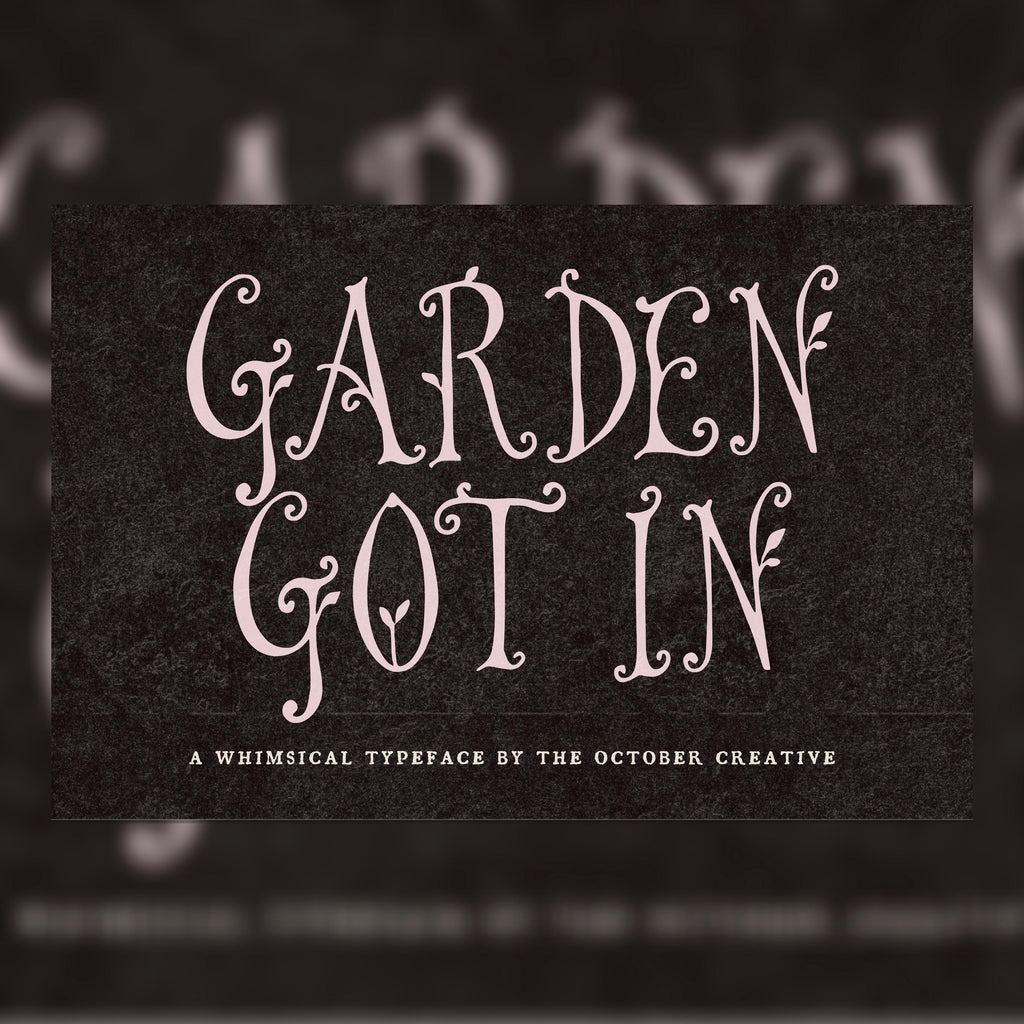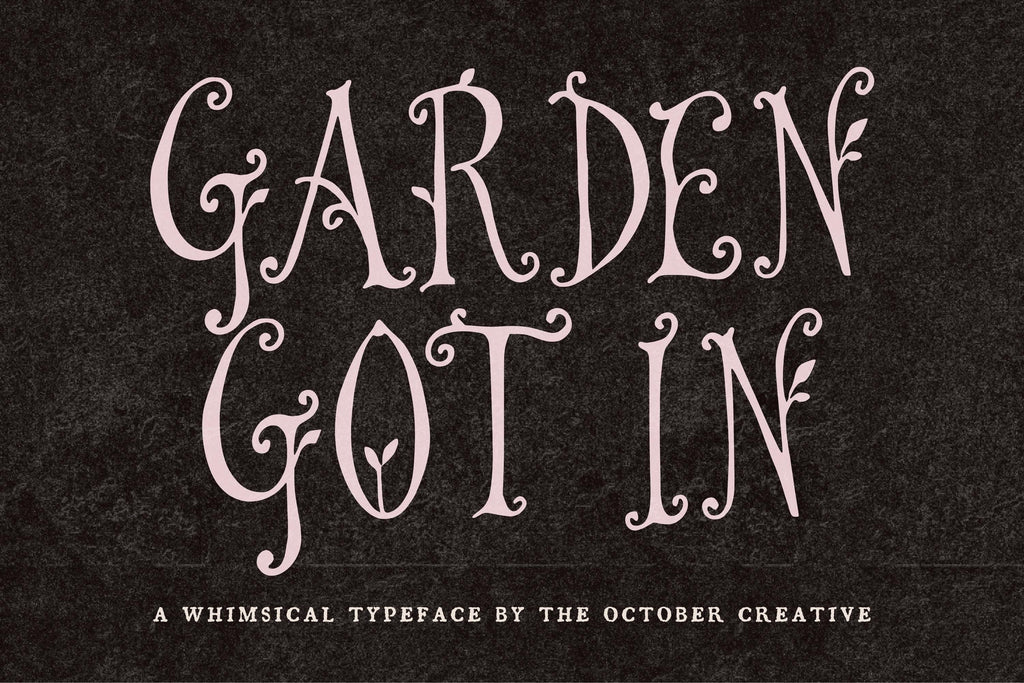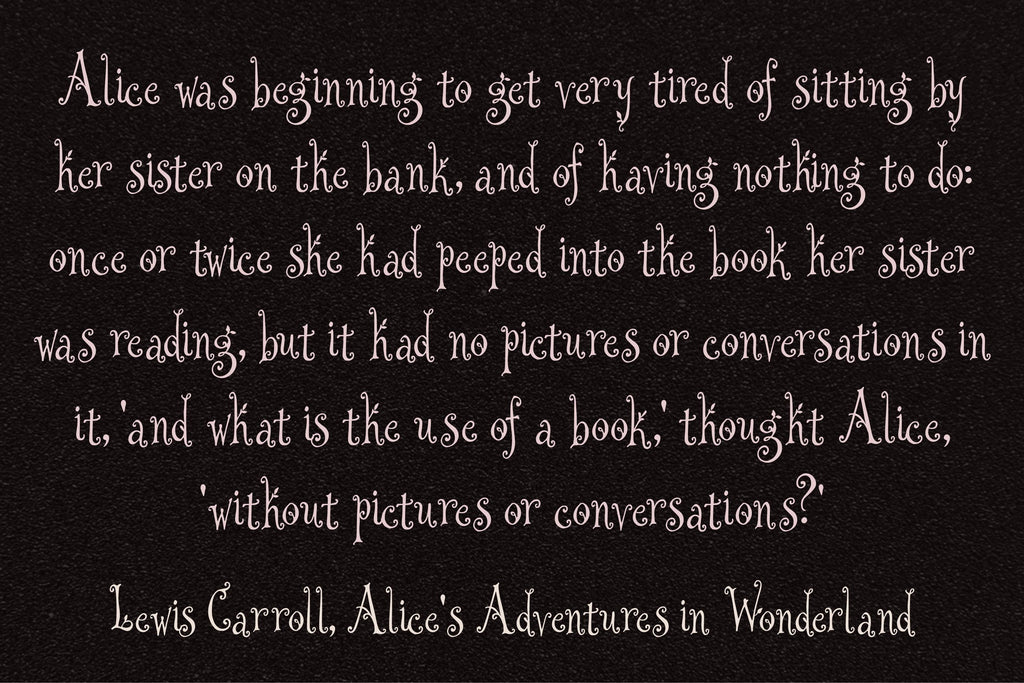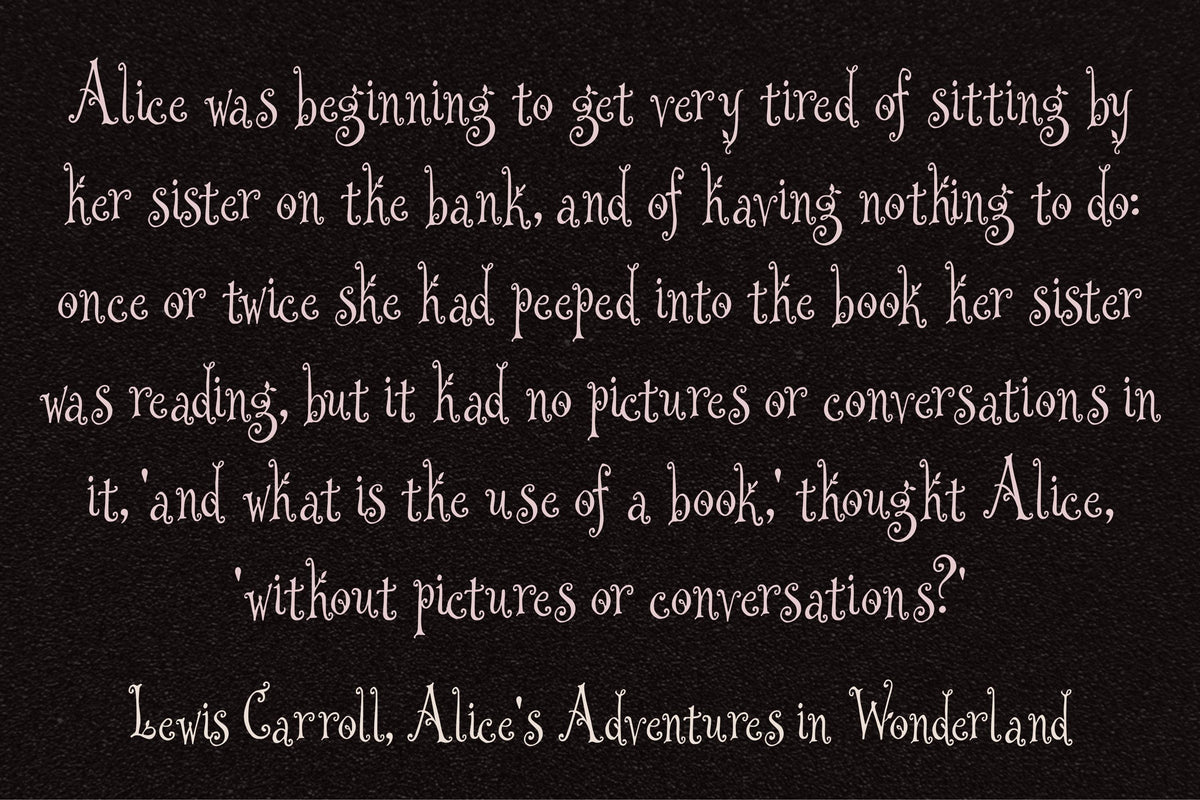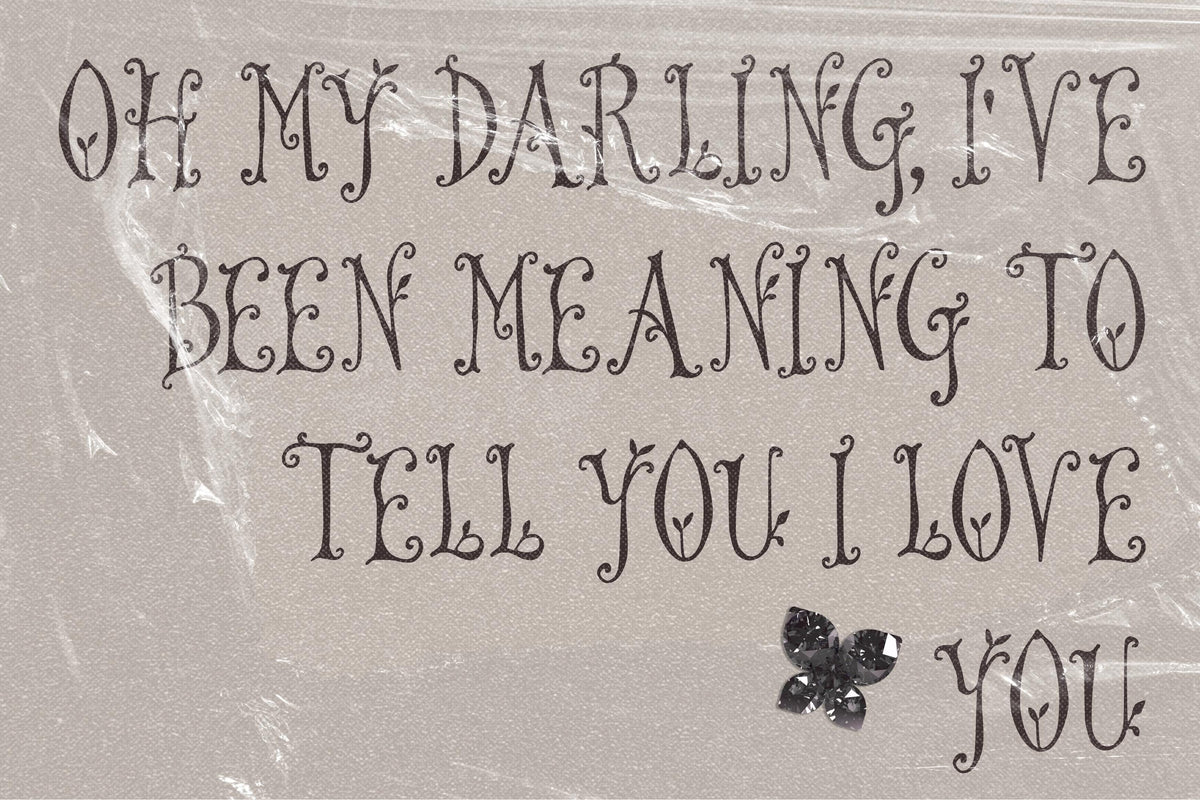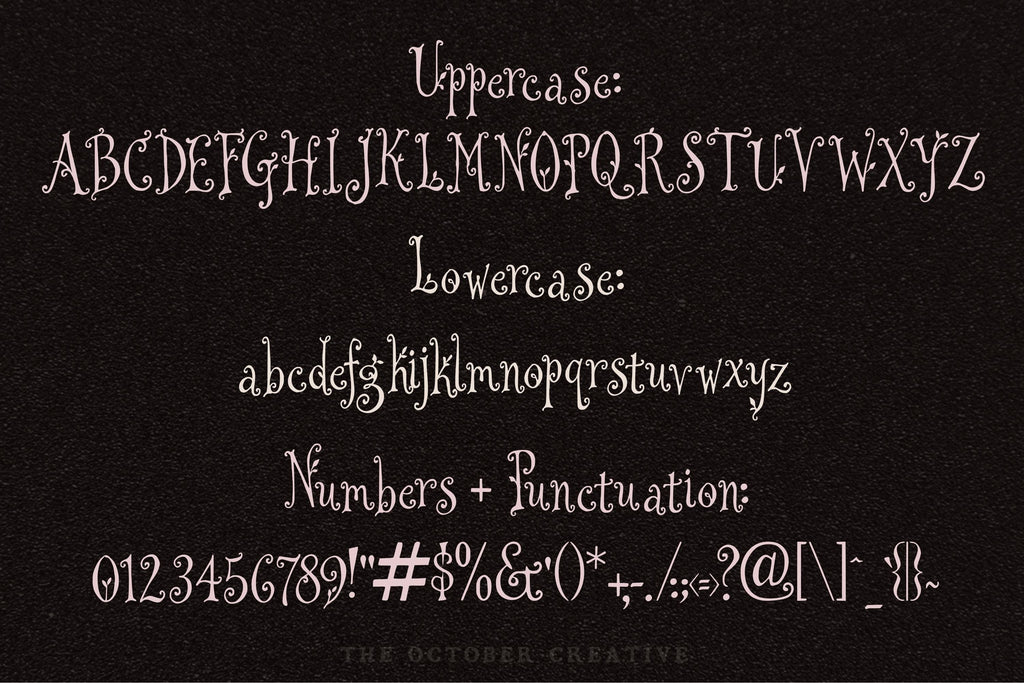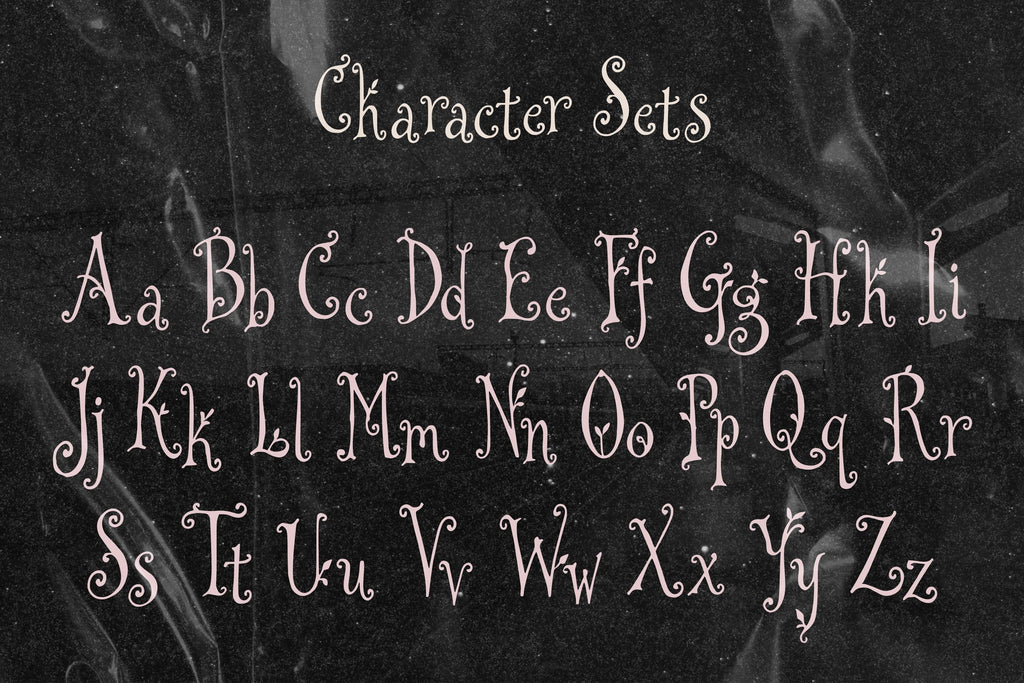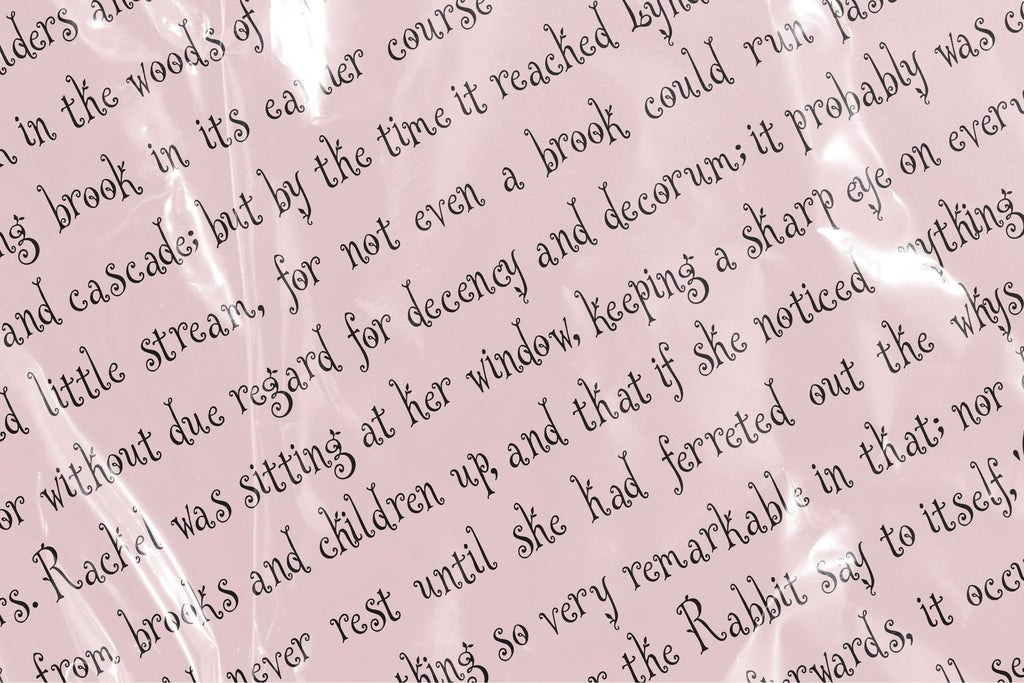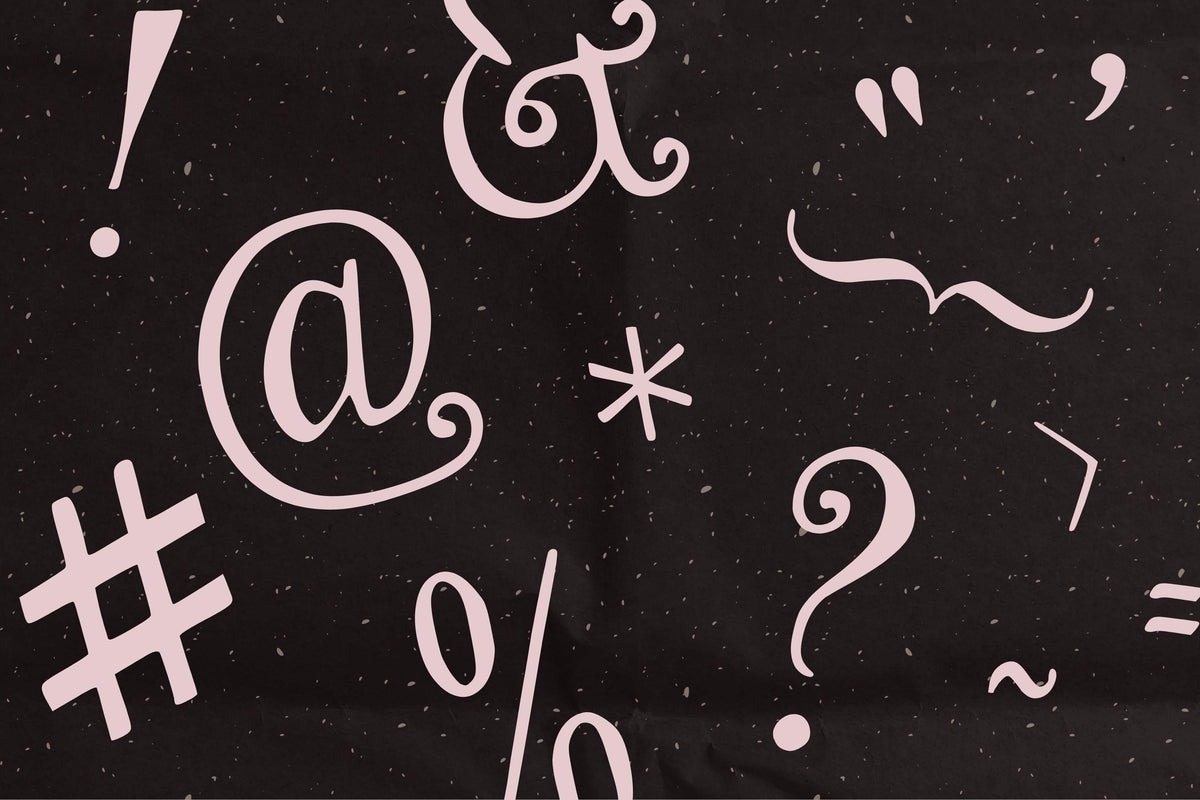
Garden Got In Font
Garden Got In looks as though a few curling vines have found their way into the lettering. Use it for garden wedding invitations, seed packet labels, and party menus with flowers all over the table.